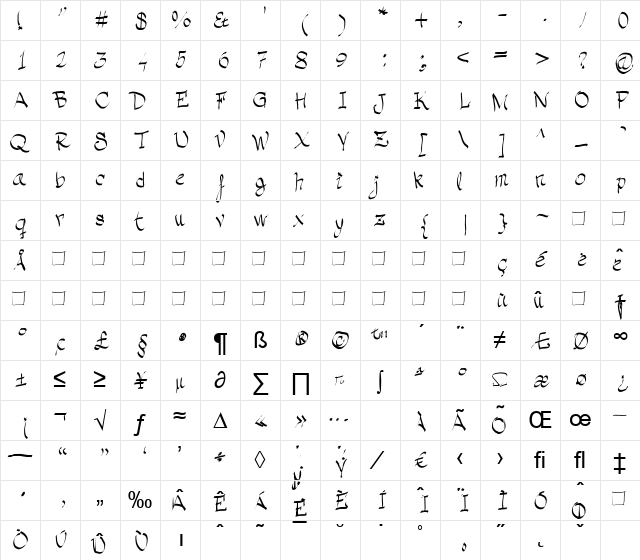
Complete Lagalga: grafia regular Regular glyph index. Displaying only characters natively supported by Lagalga: grafia regular Regular font.
Lagalga: grafia regular is a composed and adaptable typeface that performs quietly and consistently across a wide range of design contexts.